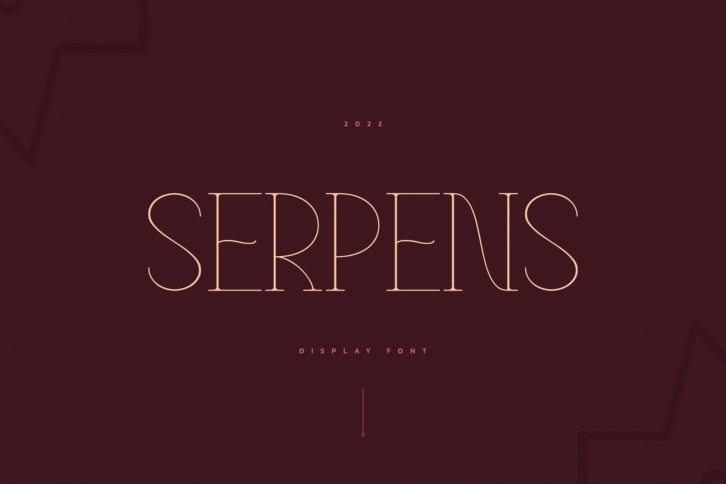
Serpens is an elegant and minimalist display font. With its stylish and graceful look, this font will add a luxury spark to any design project that you wish to create!